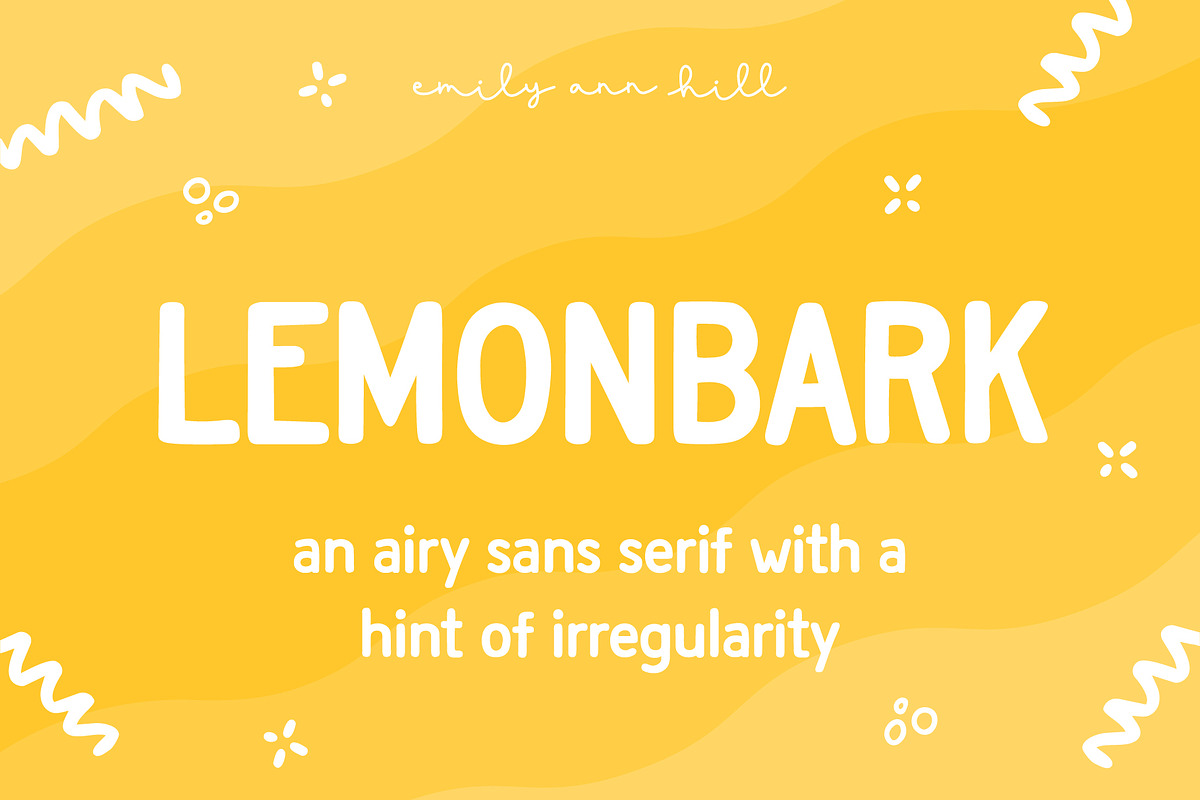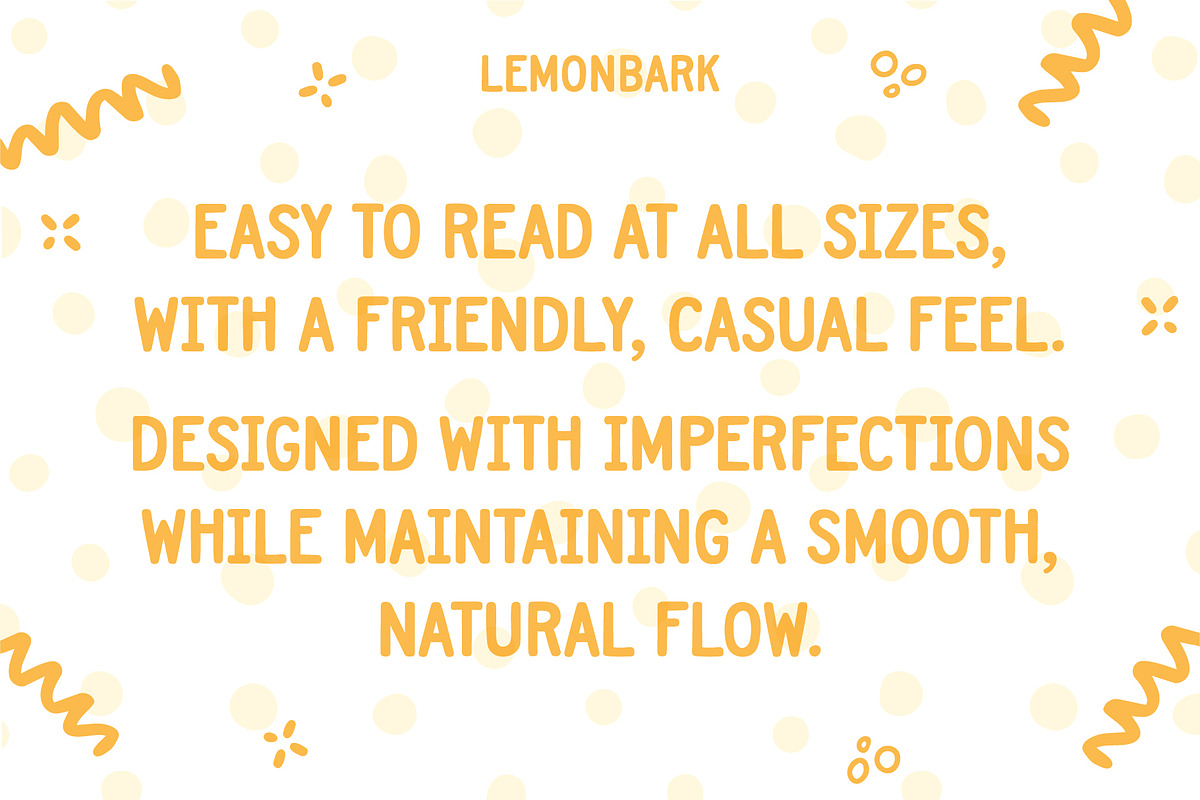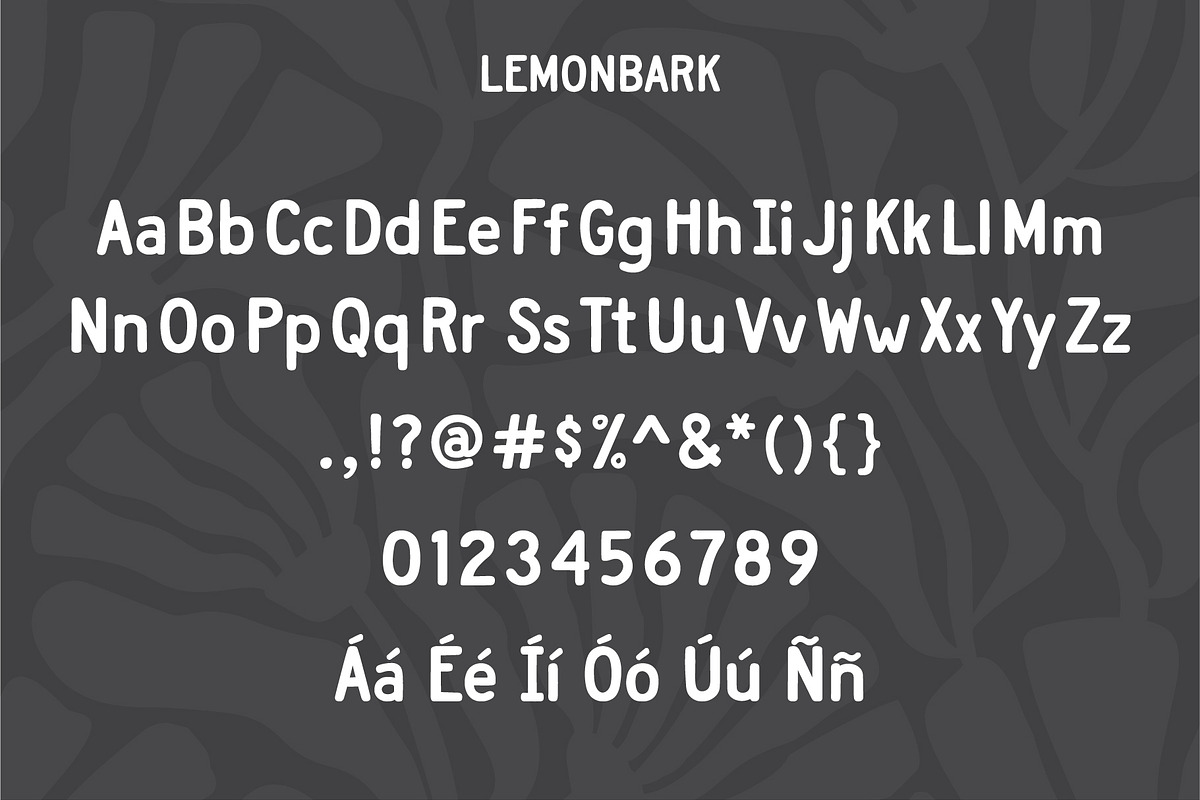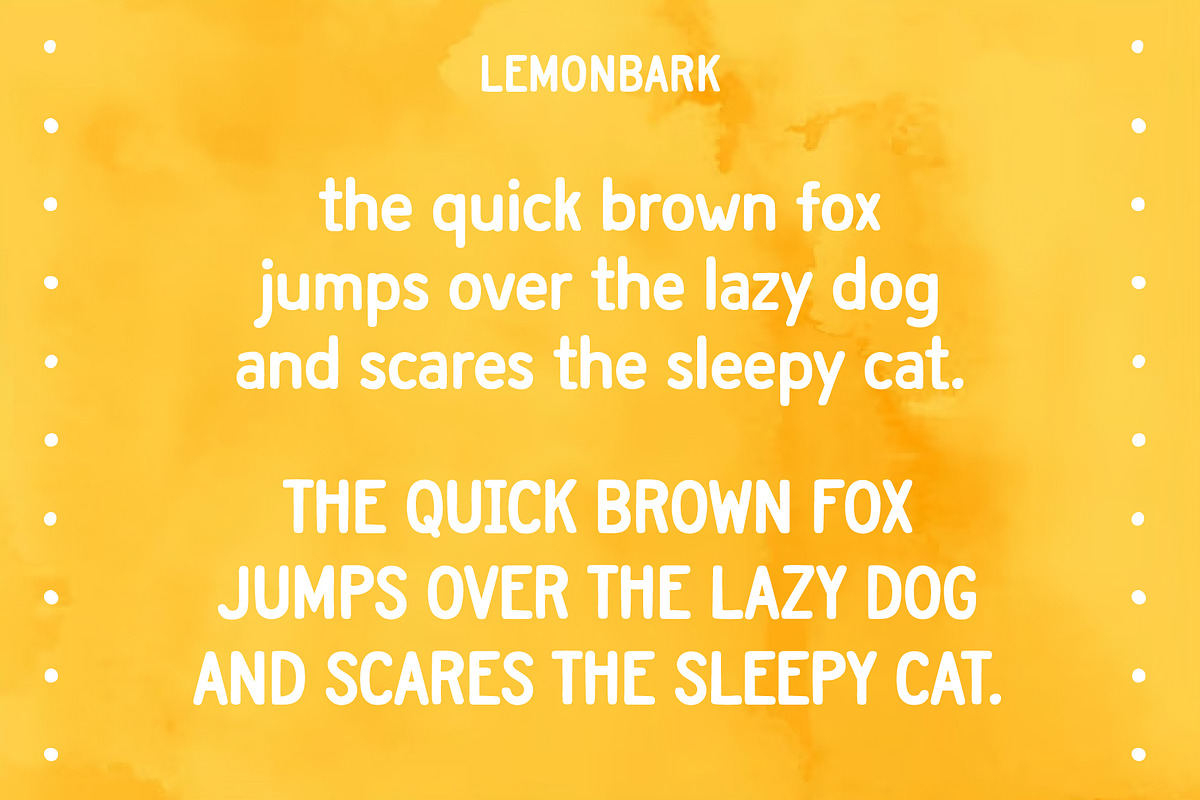
Lemonbark by Emily Ann Hill
Lemonbark is an airy, hand-illustrated sans serif font featuring a hint of irregularity that gives it plenty of character.
Designed with rounded details and lots of personality, it's perfect for branding, packaging, editorial layouts, and standout display copy. Its playful yet sophisticated style also works beautifully for social media graphics, invitations, product labels, or any design that needs a fresh, approachable vibe.
Lemonbark offers clarity at both large and small font sizes, keeping it's character while remaining crisp and legible. It’s a versatile choice for any creative design or branding projects that need personality without sacrificing readability.